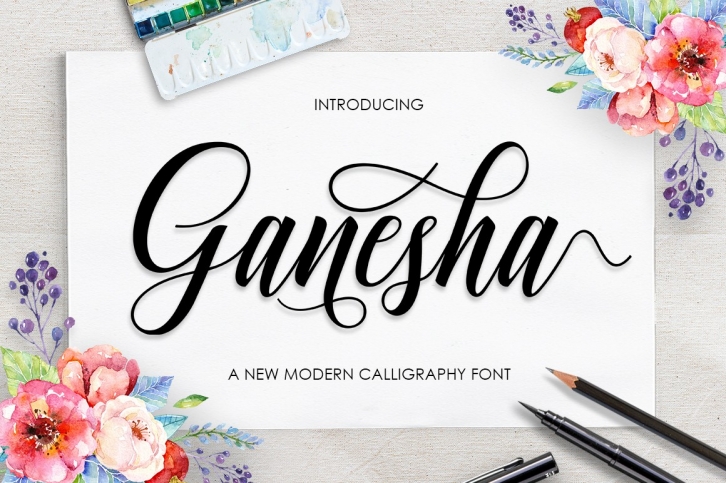
Ganesha Script is a great font that was designed by Lettersams. Imagine the amount of combinations you can create using this font! The archive is 12.9 MB and it was released on March 23, 2018. Ganesha Script looks beautiful on wedding invitations, greeting cards, logos, posters, labels, t-shirt designs, logos, business cards and is perfect for use in ink or watercolor works, fashion, magazines, packaging and food menus, children's books and more!